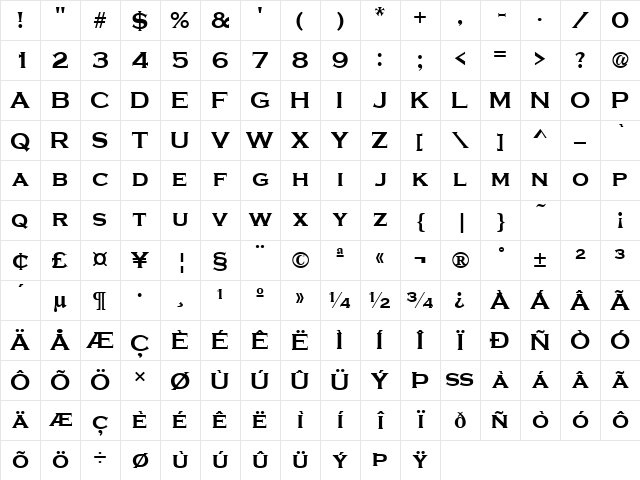
Copperplate Bold Free Font
Copperplate Bold
Design Context for Copperplate
Copperplate is a composed and adaptable typeface that performs quietly and consistently across a wide range of design contexts. Its bold stroke weight gives it real presence on the page.
Pro Tip: Use Copperplate in both headline and body roles to test its range before committing to a single application.